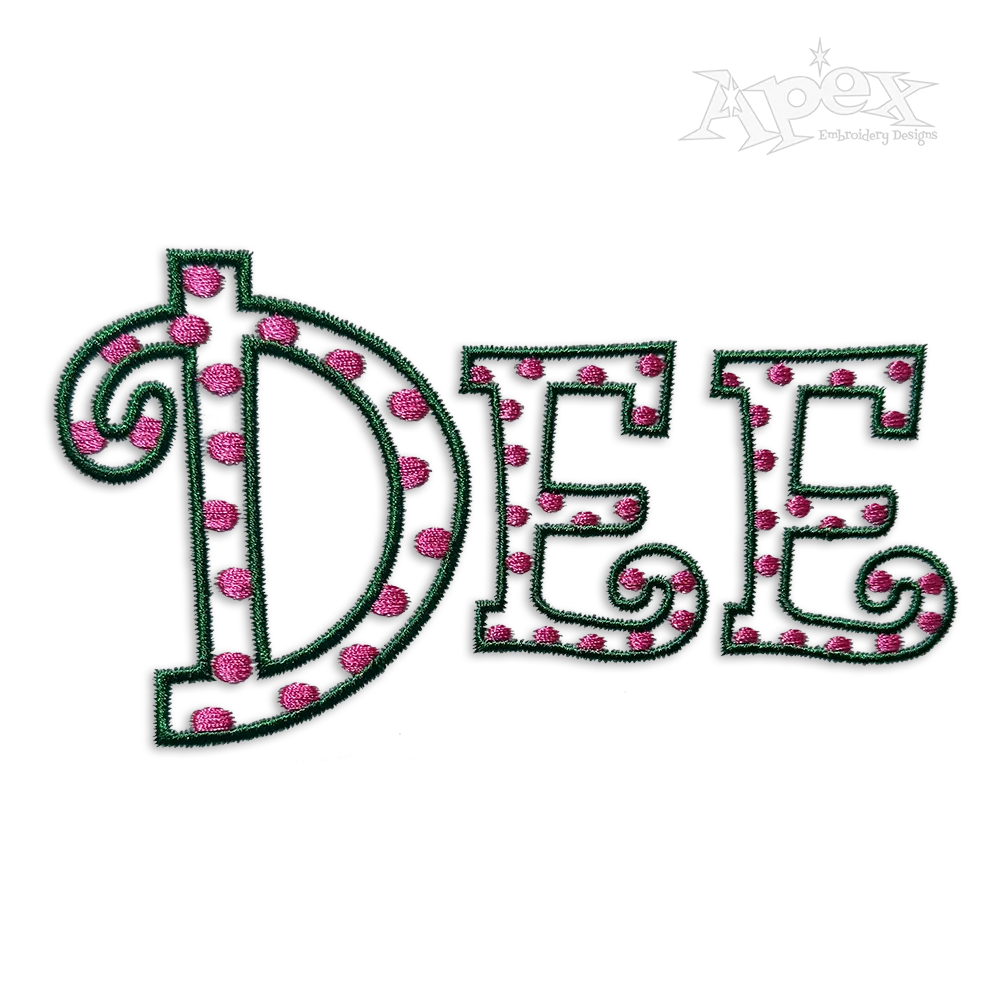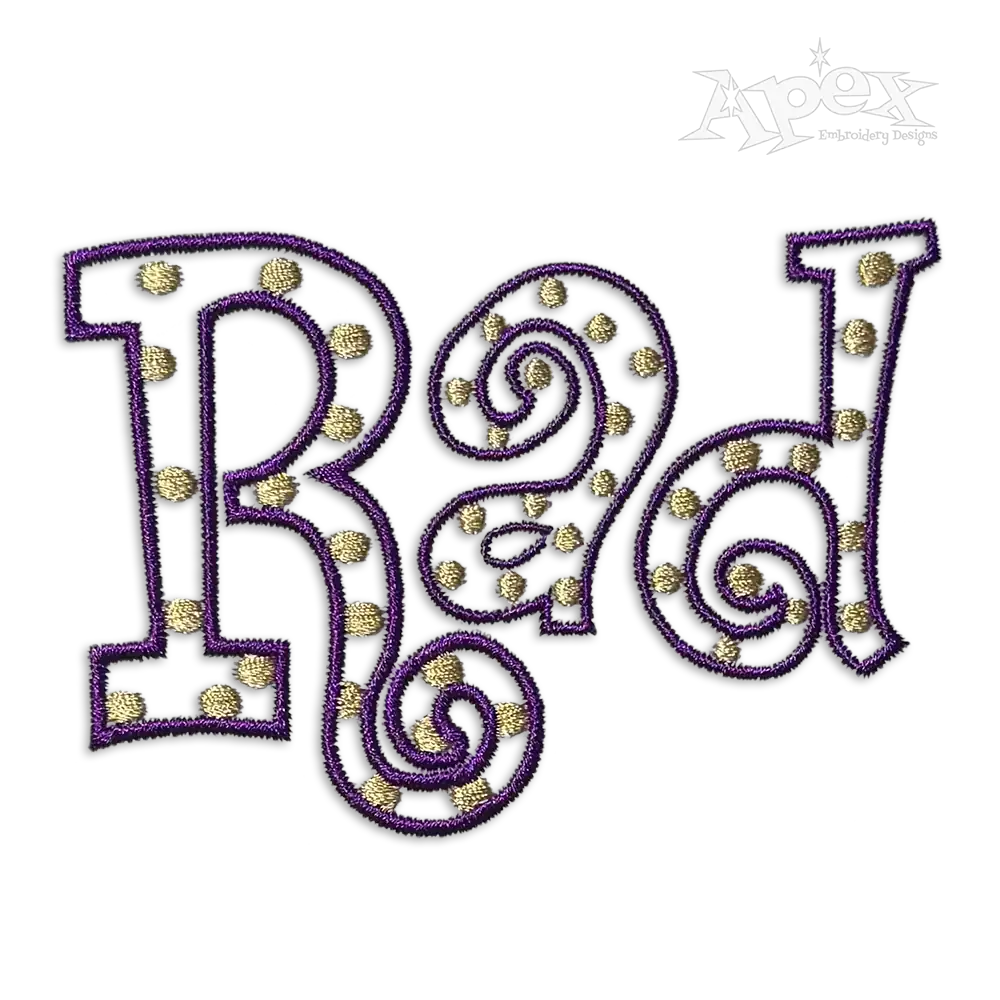
Curlz Polka Dot Embroidery Font
Create Polka Dot Curlz style personalized gifts and home décor with Curlz Polka Dots Font. Fun whimsical stylish polka dots embroidery monogram set is perfect for customizing hats, linens, towels, baby gifts, tote bags, and more.
This Polka Dot Curlz embroidery font collection includes complete size sets with uppercase monogram letters designed for creating stunning 3-letter monograms. Each font comes professionally digitized for smooth stitching and excellent embroidery results. Apex has digitized machine embroidery fonts for over 25 years.
- Polka Dot Curlz Monogram Font
- Perfect for Text & Names.
- Custom Home Décor Projects